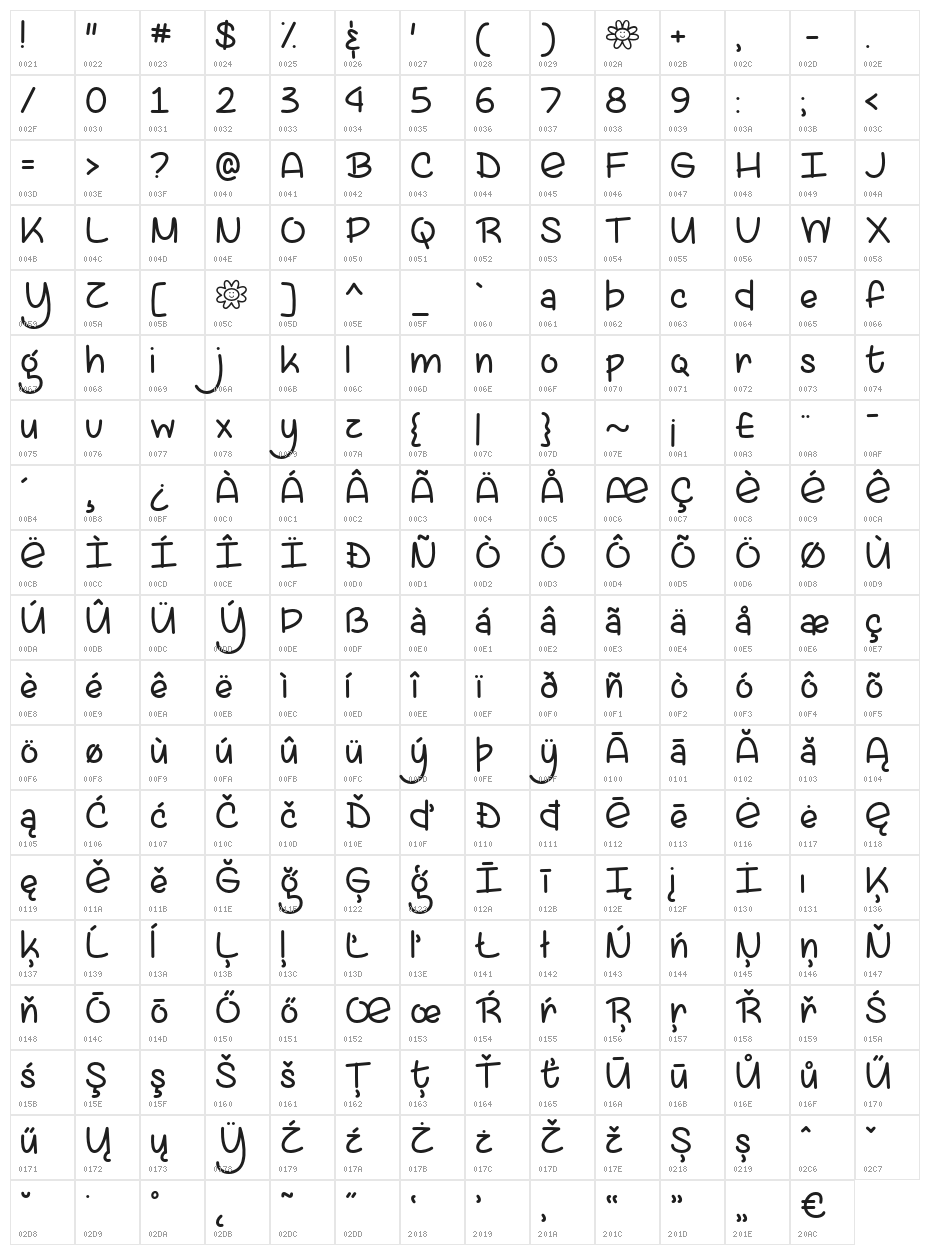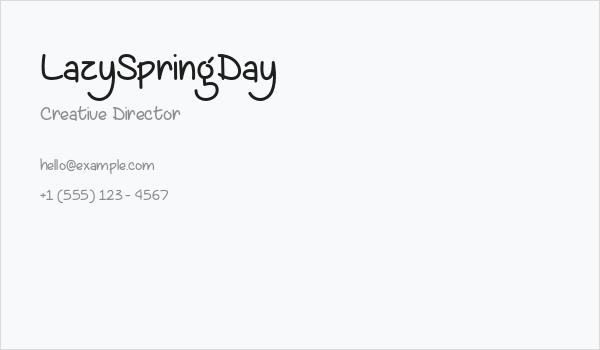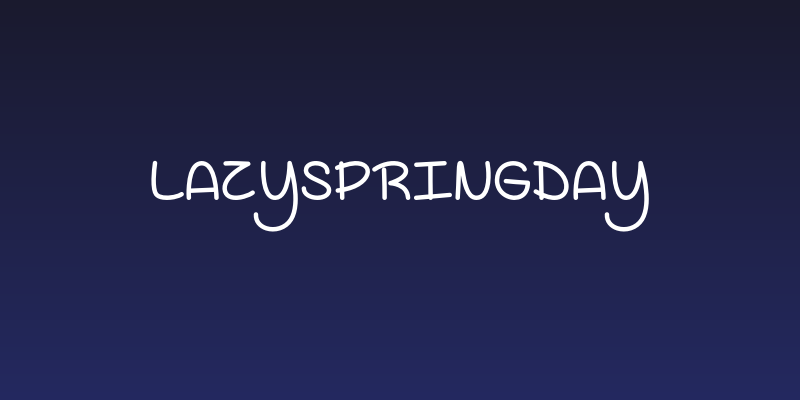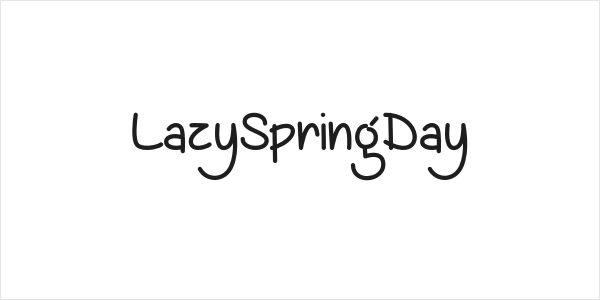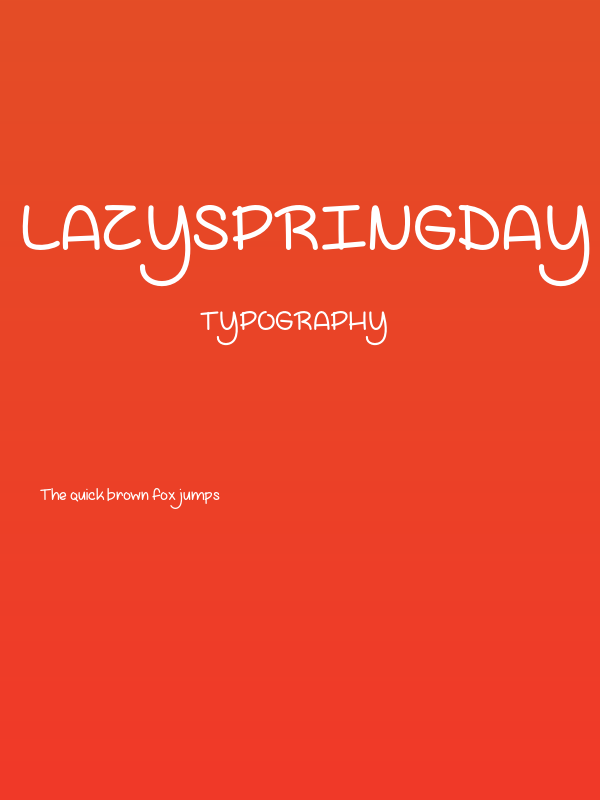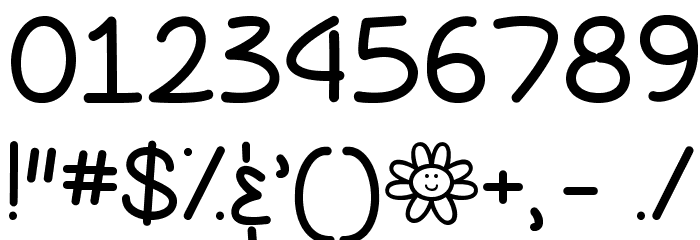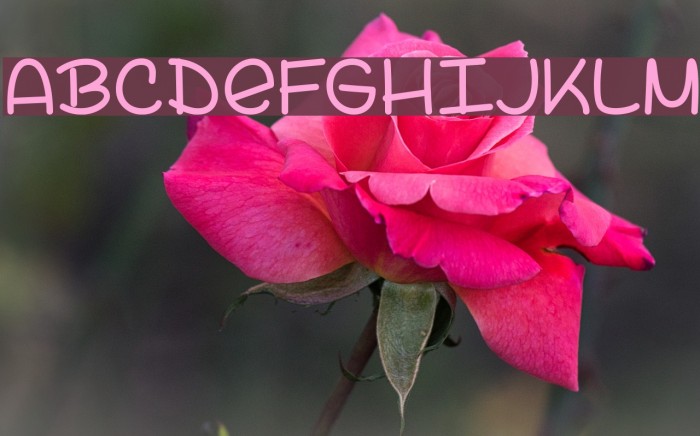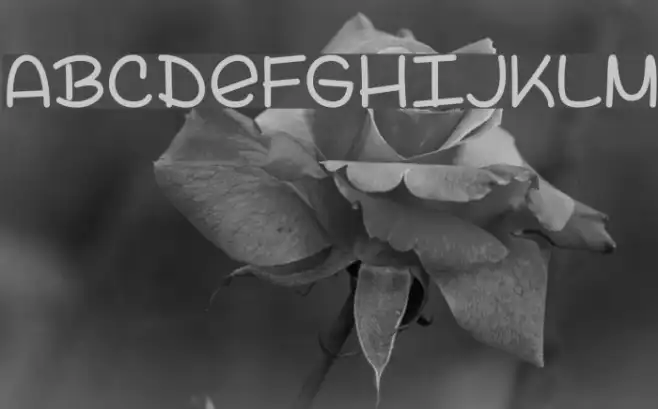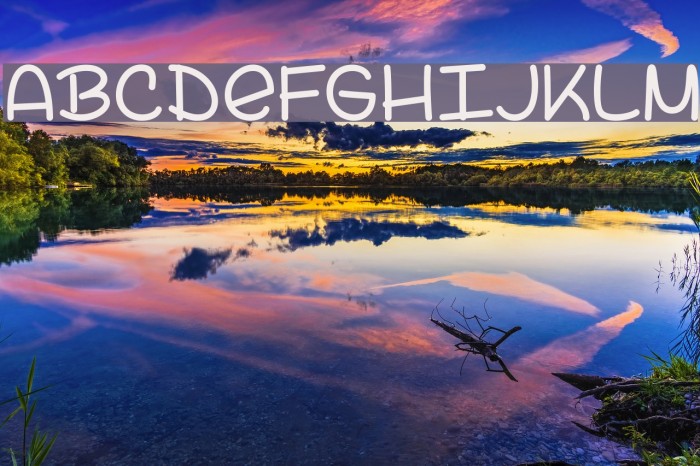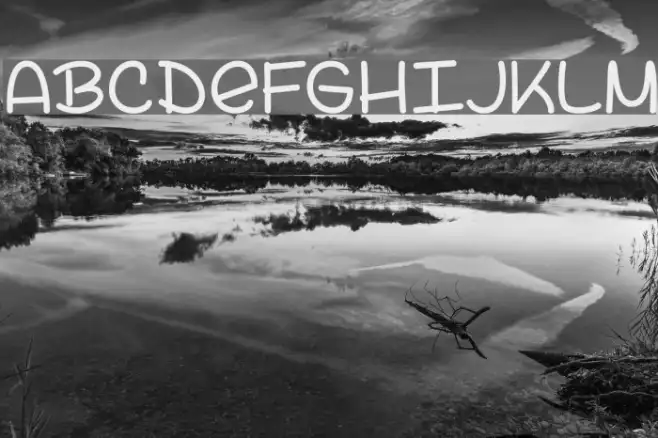
LazySpringDay Font
LazySpringDay Description
This playful and whimsical font features rounded, smooth edges and a casual, handwritten style. The characters are slightly irregular, adding a personal and friendly touch. The uppercase letters are bold and prominent, while the lowercase letters maintain a consistent flow with a slight slant. Numbers are clear and easy to read, matching the playful style of the alphabet. Special characters are creatively designed, with some featuring unique embellishments, enhancing the font's charm. This font exudes a sense of fun and creativity, making it ideal for informal and lighthearted projects.
| Proposed Projects | Ideal for children's books, greeting cards, playful branding, and social media graphics. |